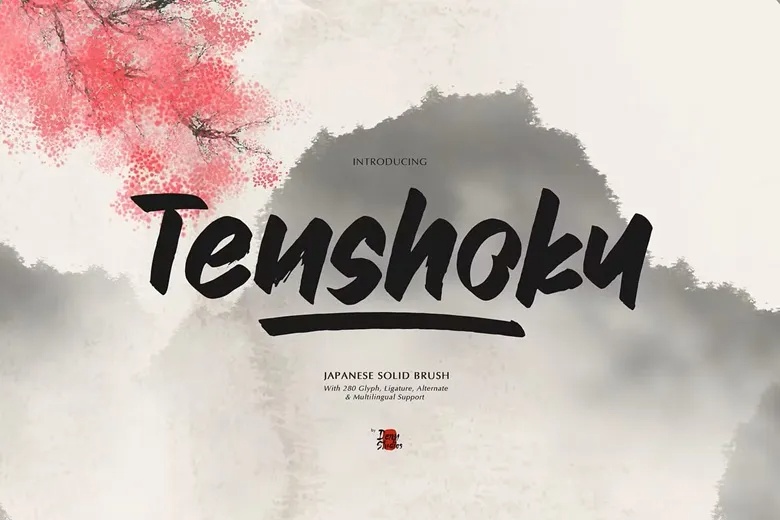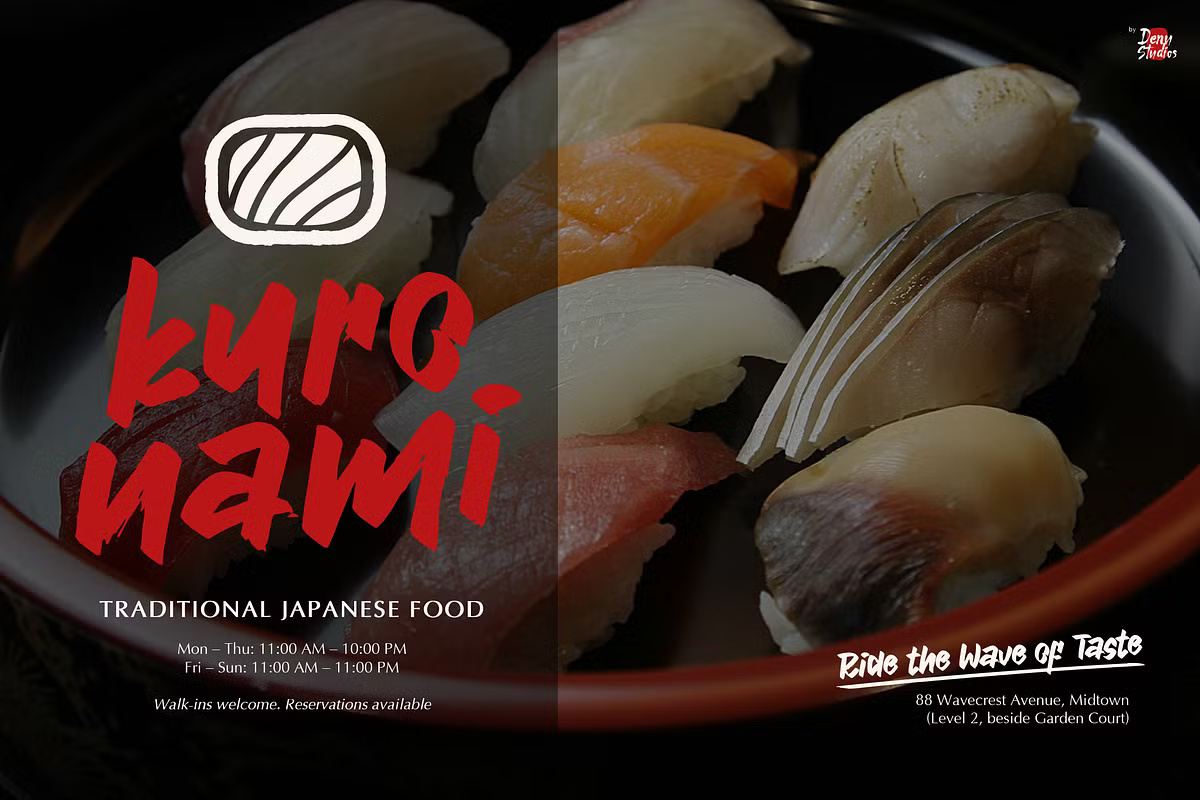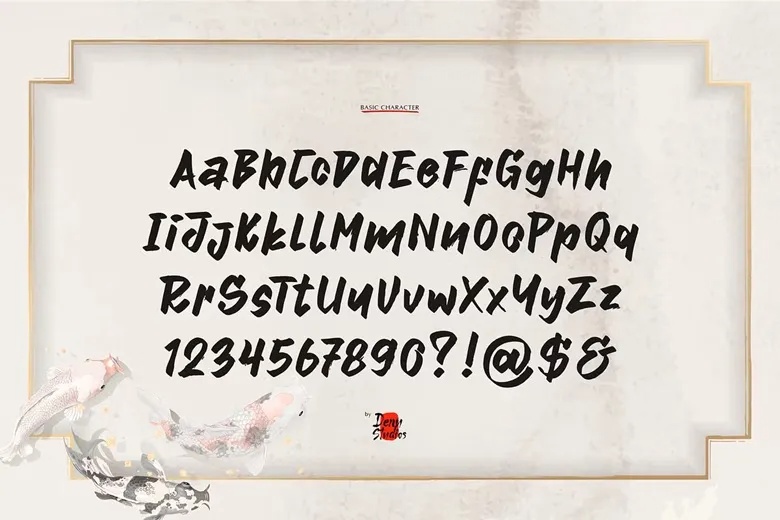
Tenshoku Font
Tenshoku is a playful and energetic brush font inspired by the expressive strokes of traditional Japanese brush art, reimagined for modern design needs. With its handcrafted charm and stippled texture, it adds a bold and artistic flair to any creative project. From logos and product packaging to posters, apparel, book covers, invitations, and more—Tenshoku delivers a dynamic, culturally rich aesthetic that stands out with every stroke.
Tenshoku Brush Script Font